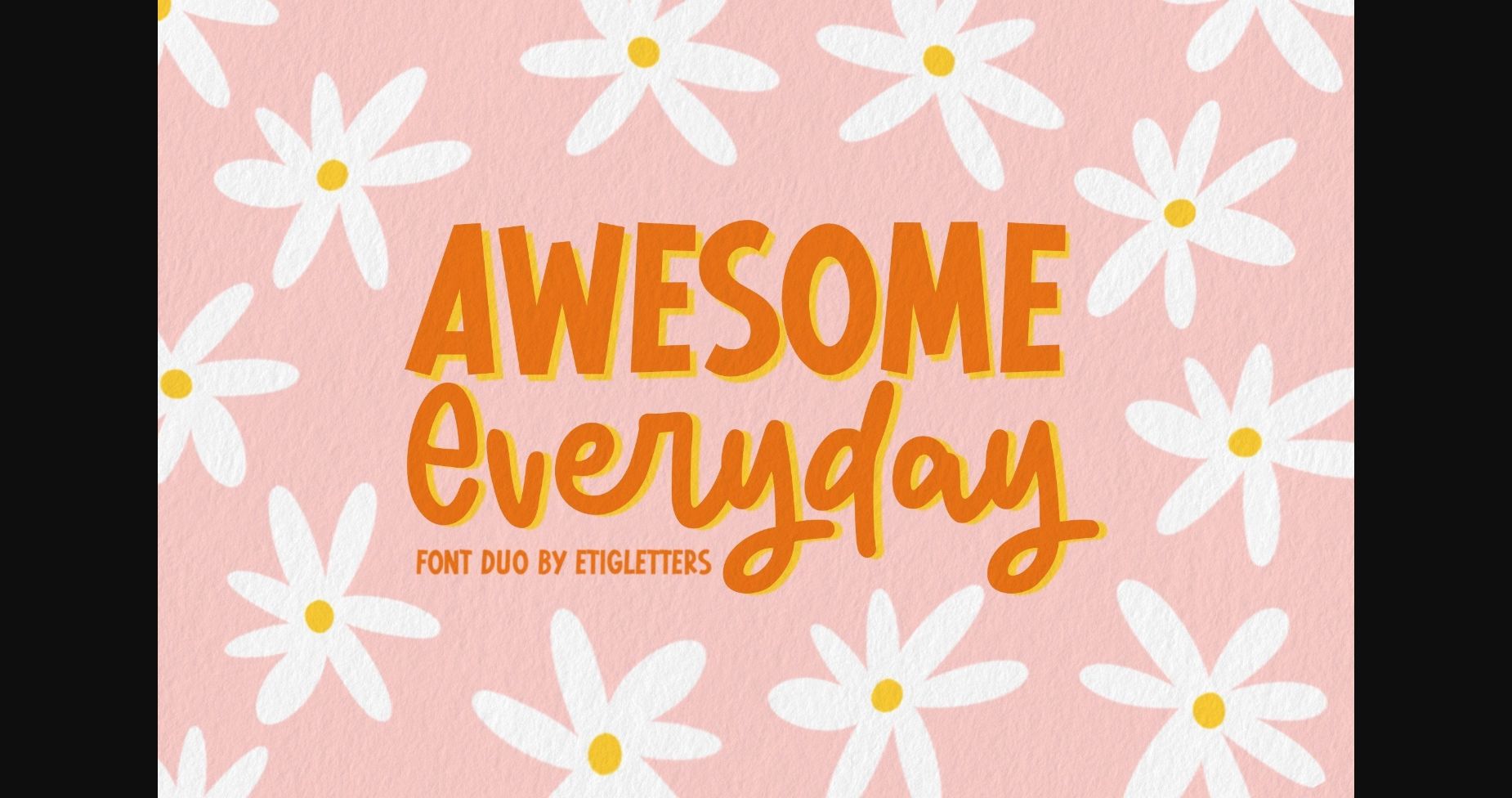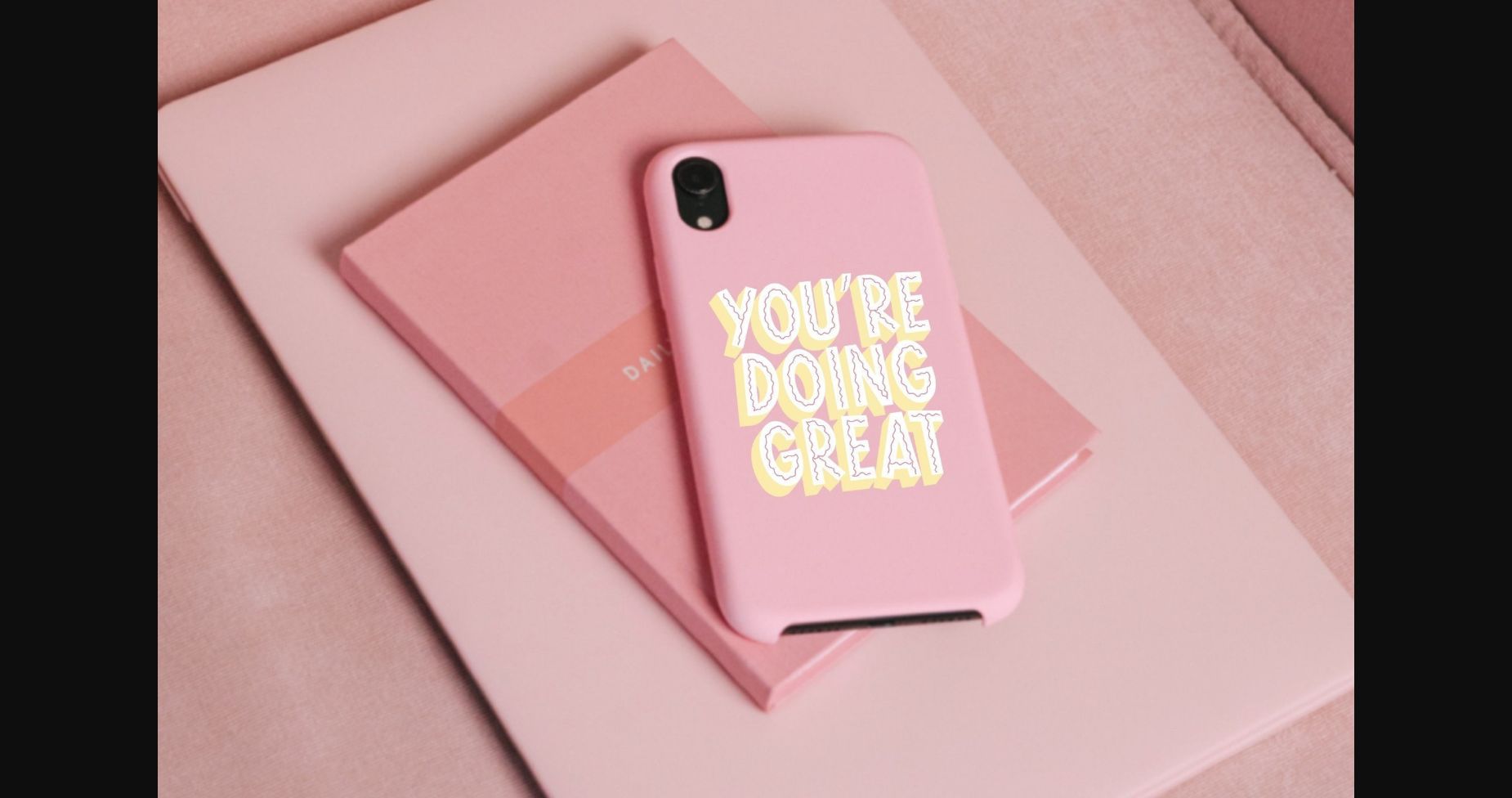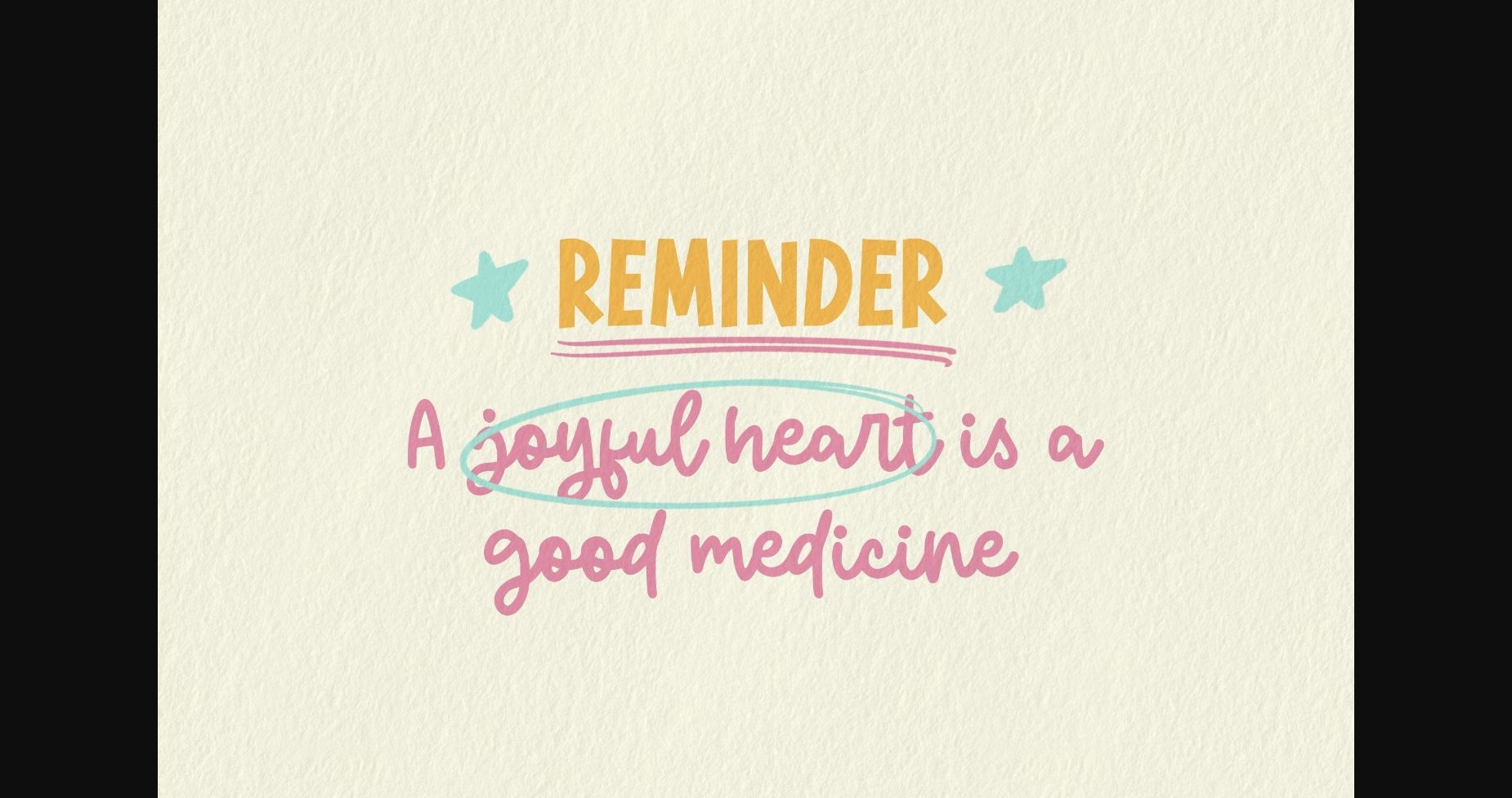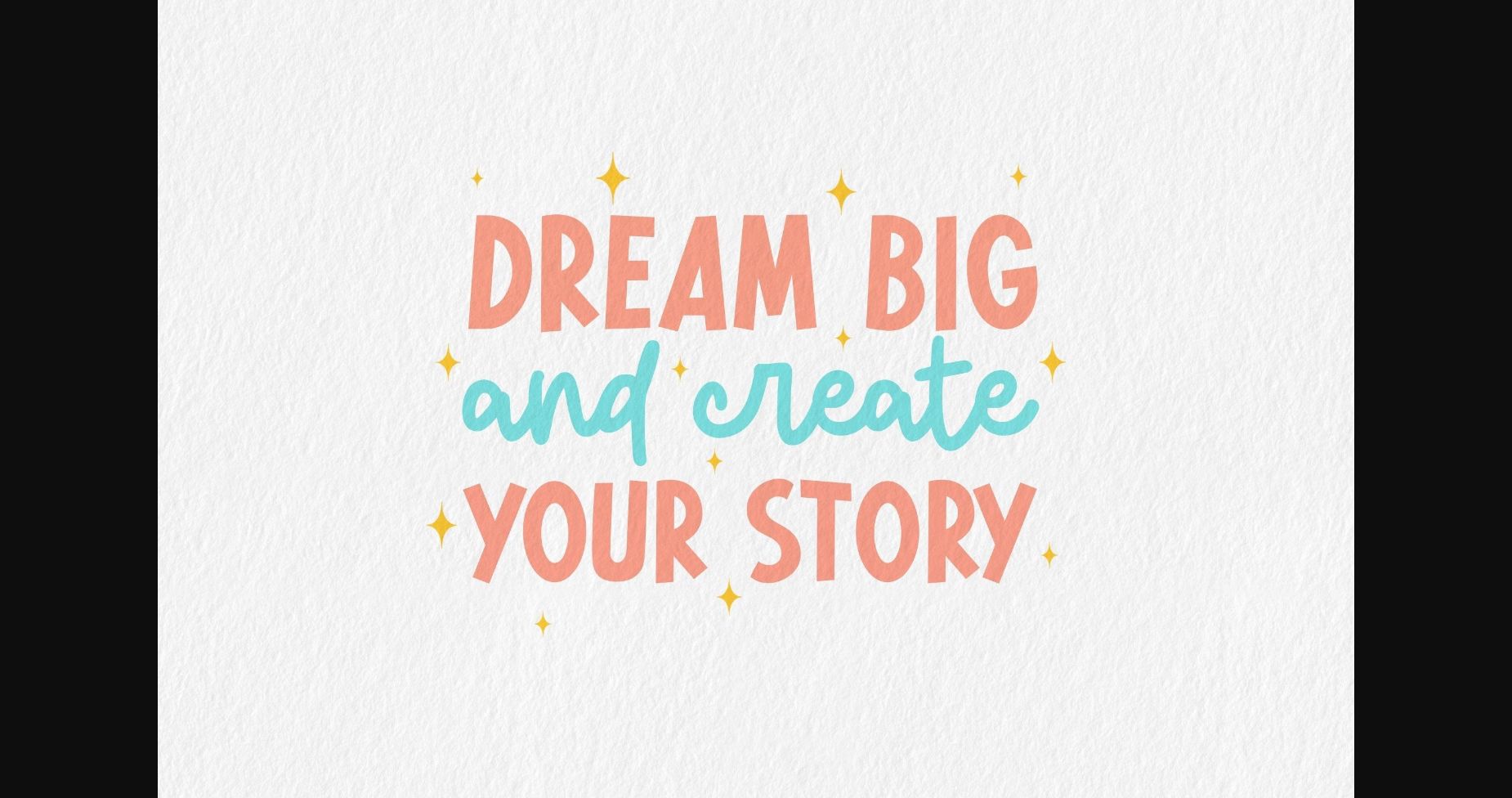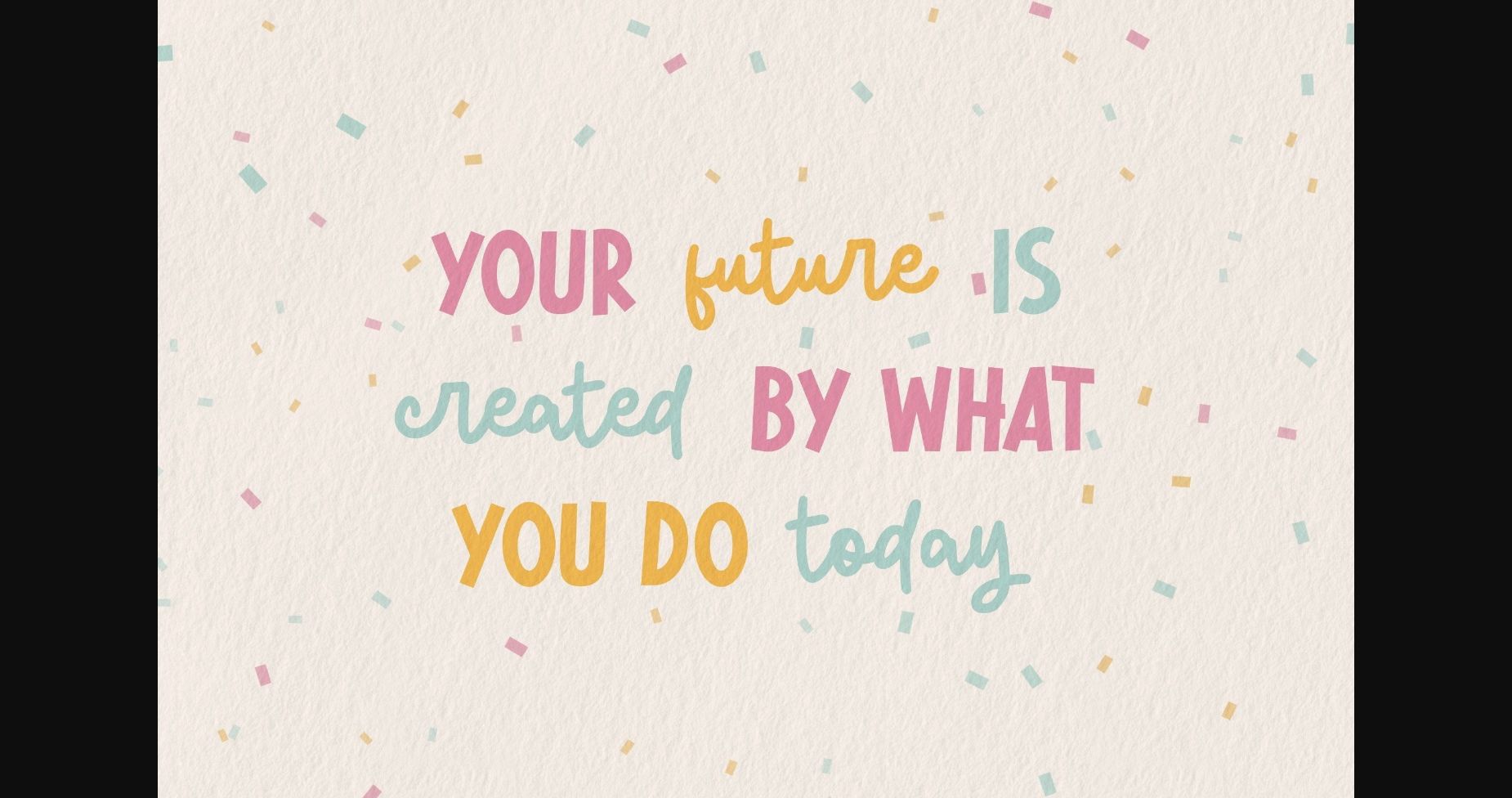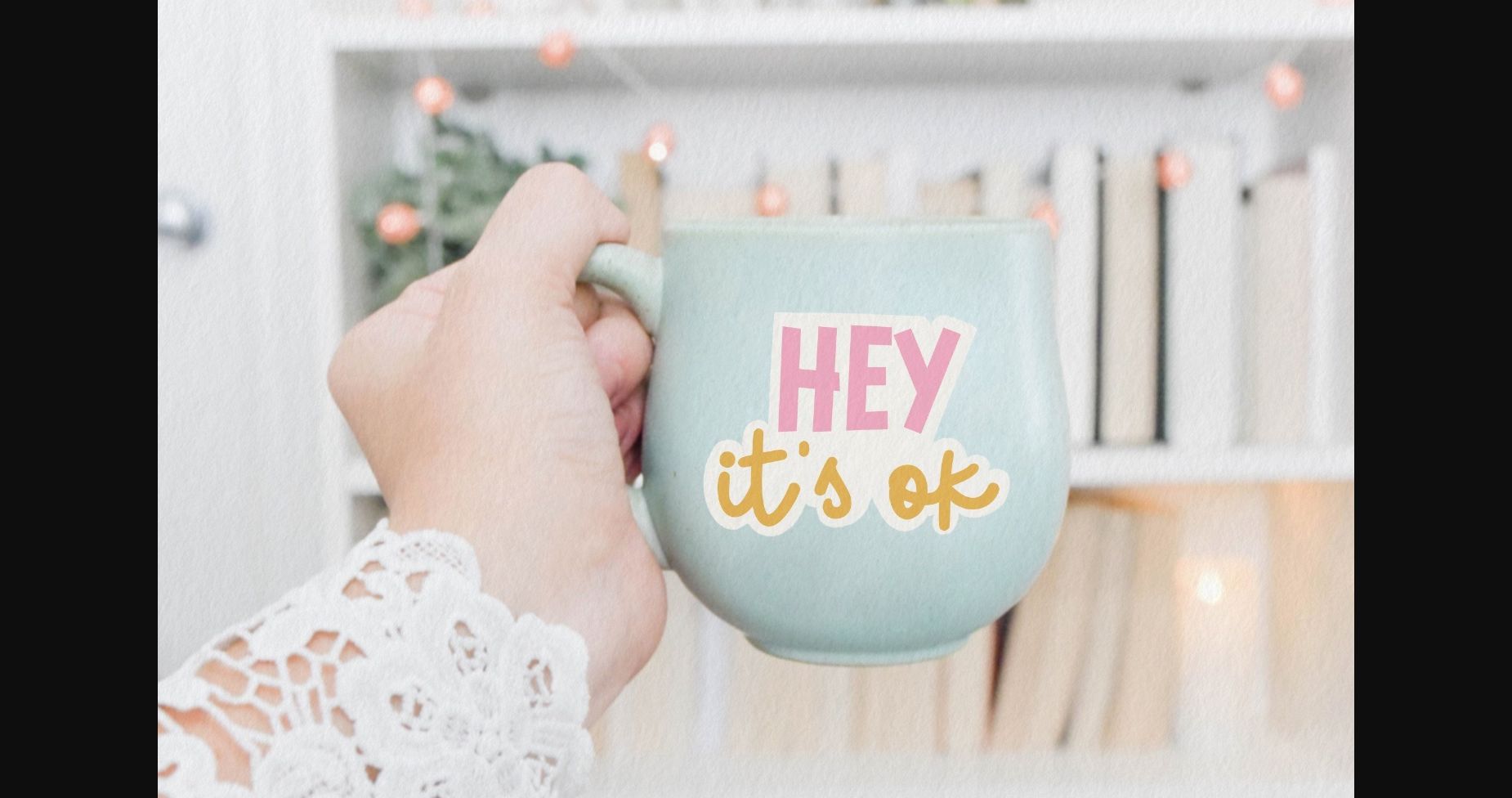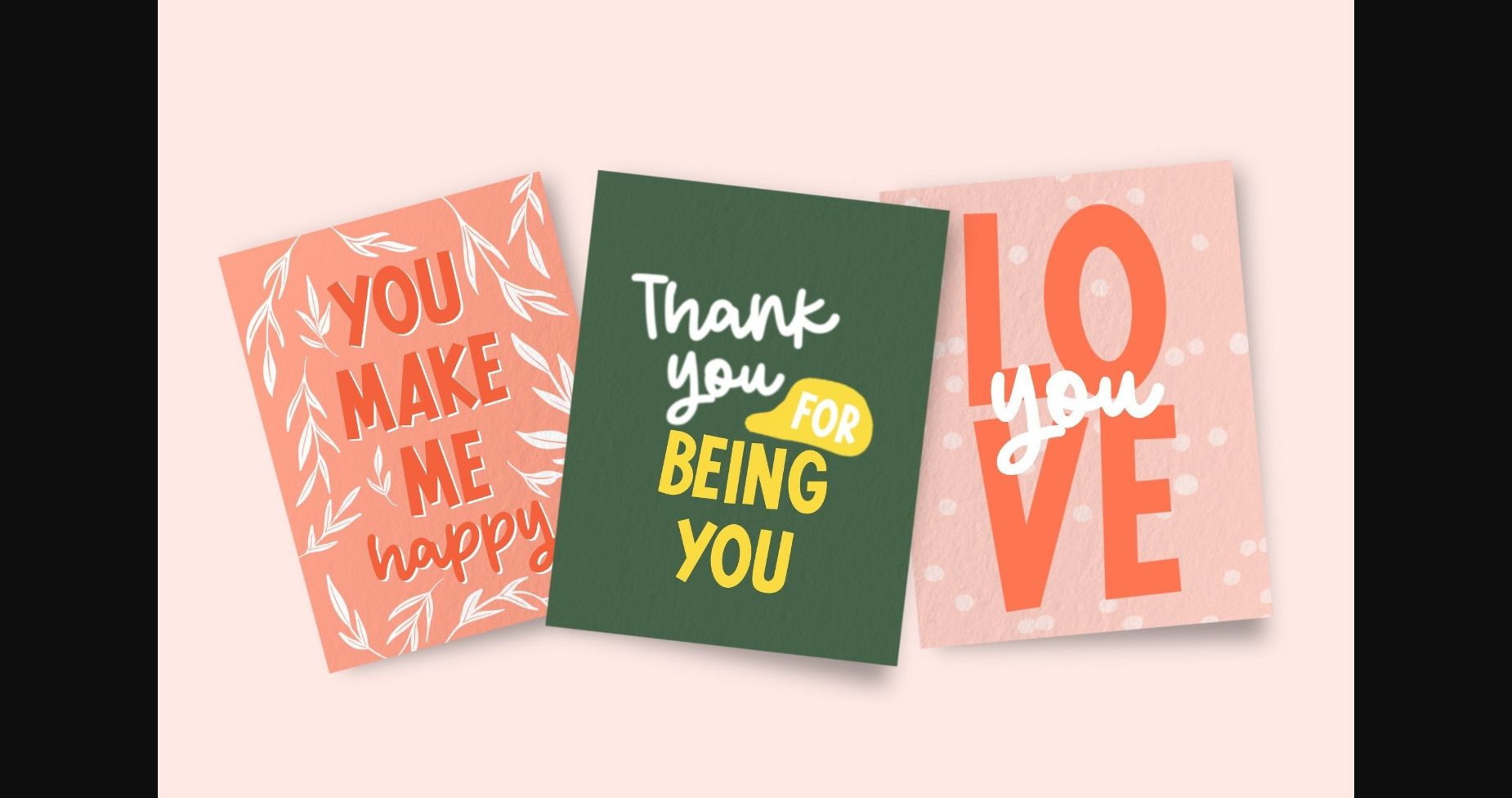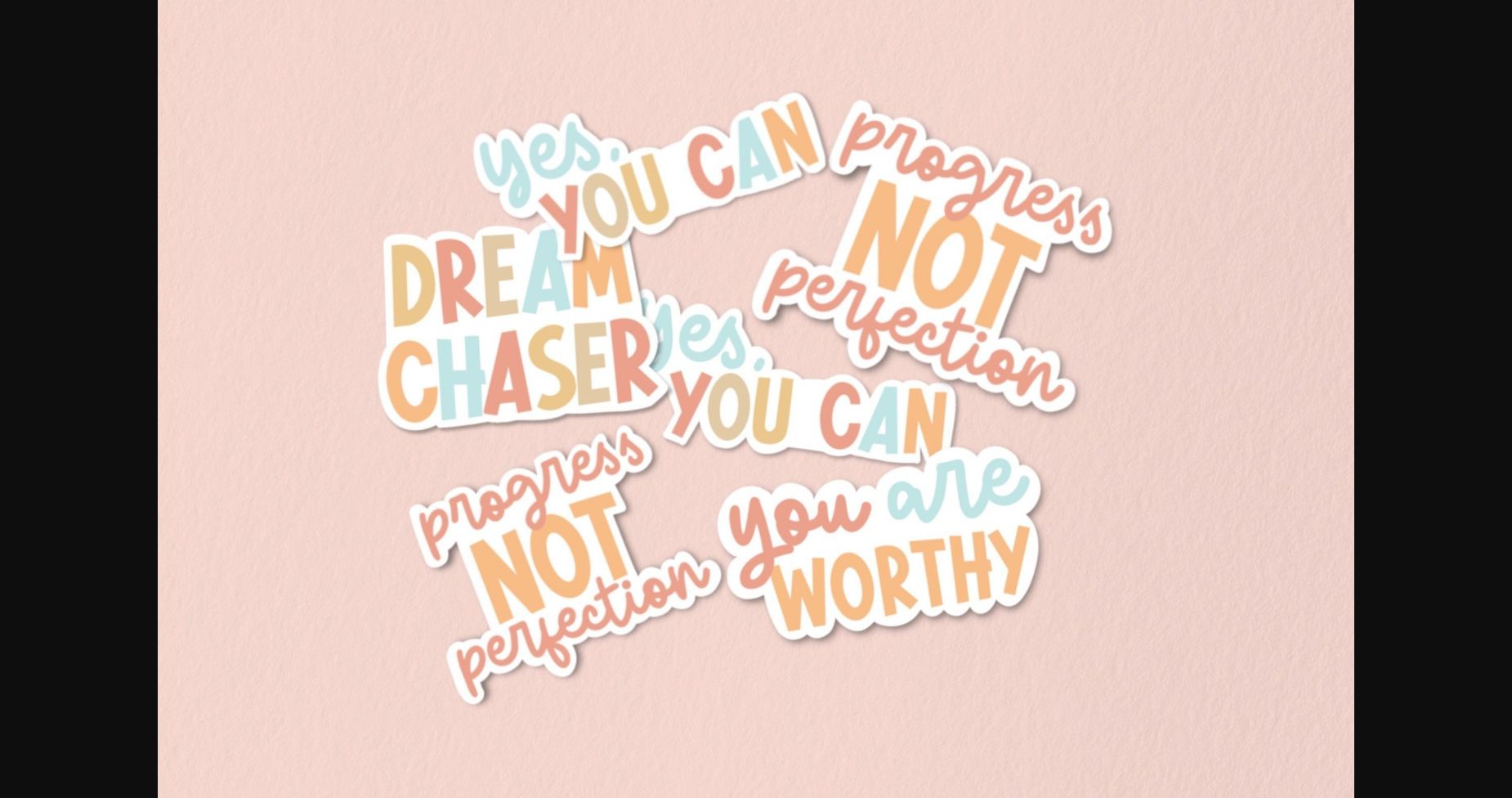
Awesome Everyday Duo Font
About Awesome Everyday Duo Font
Awesome Everyday is a handwritten combo pairing with playful sans serif fonts. Awesome Everyday will be perfect for stickers, greeting cards, logos, posters, or anything that requires a fun and happy look!